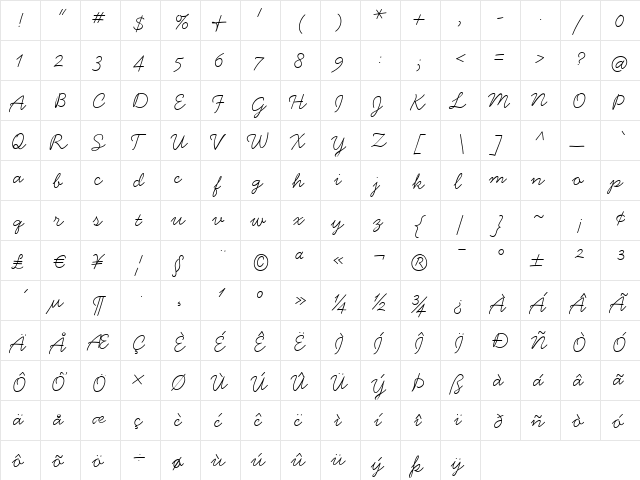
Handsome Light
Design Context for Handsome Typeface
Handsome flows with the natural rhythm of handwritten lettering, making it ideal for designs that call for warmth and personal expression. Its slender proportions lend an understated elegance to any composition.
Font Pairing: Combine Handsome with a simple geometric sans for maximum contrast — the tension between flowing curves and clean structure is a classic typographic pairing.
Pro Tip: Use Handsome for short runs of text — names, titles, or taglines. Extended body copy in script faces tires the eye quickly.